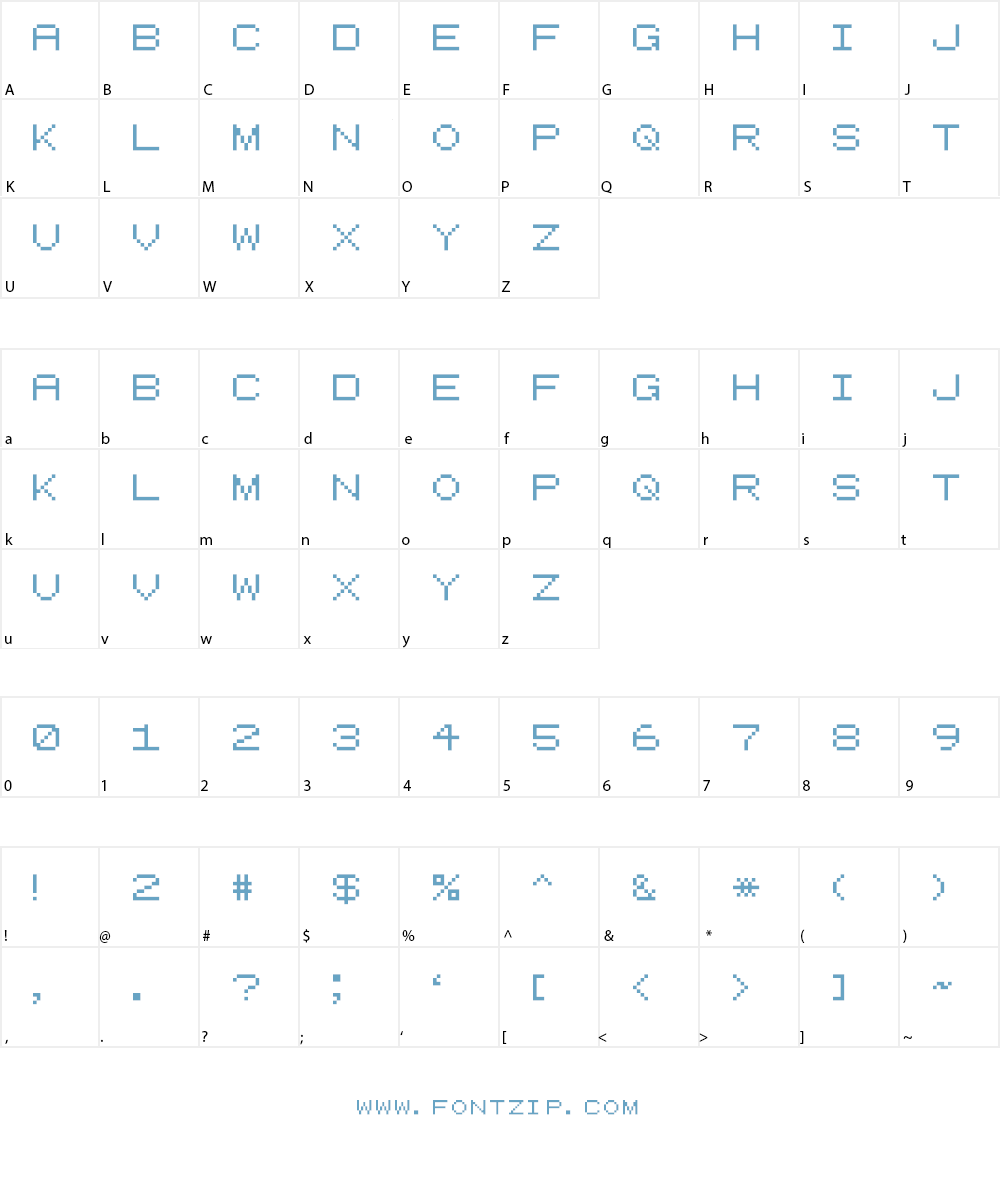
Based on Sydnie and Helvetica, Informa is an easy-to-read electronic typeface with wide character spacing. Ideal for small LCD displays and large electronic signs.